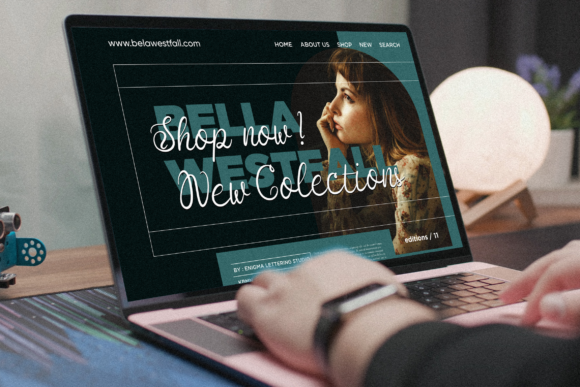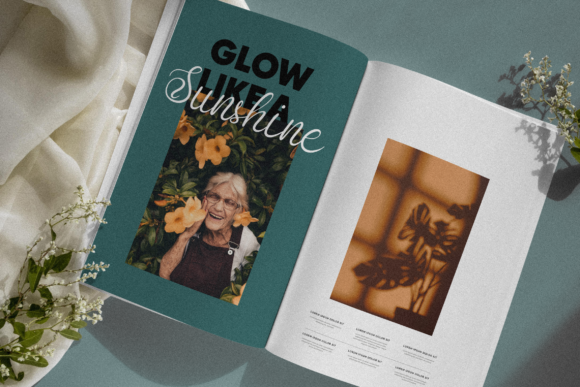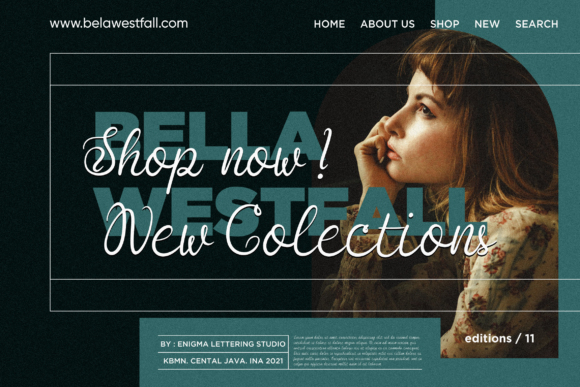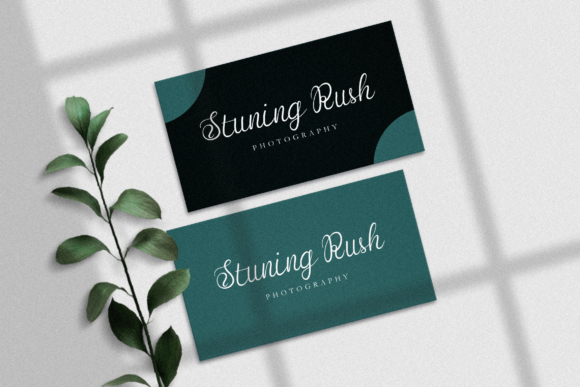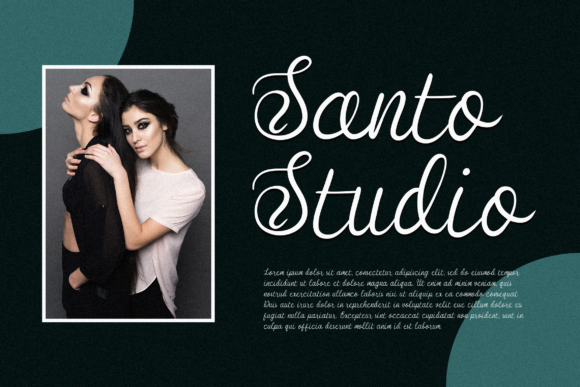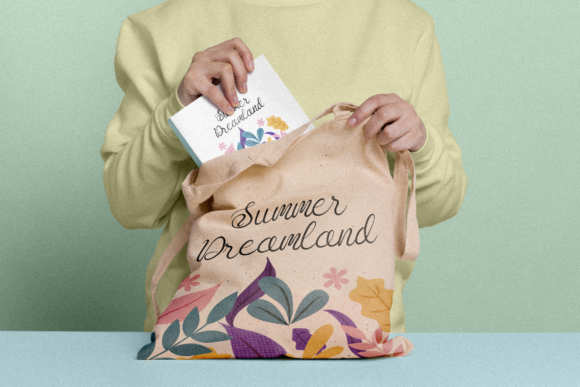
Meet Your New Favorite Font: Hello Queen
Have you ever stared at a blank page, feeling uninspired and uncertain about where to start? For many of us, this is a familiar creative conundrum. But what if I told you that the perfect spark could be just a font away? Introducing the Hello Queen Font, a delicate script font designed to bring elegance and sophistication to your designs.
This lovely font is more than just a pretty face – it’s a powerful tool for designers looking to add a touch of refinement to their work. With its soft curves and gentle lines, the Hello Queen Font is perfect for creating invitations, wedding stationery, and other special occasion designs where a delicate touch is required.
Hello Queen Font Key Features
- Font Family: Hello Queen Font is a beautiful, elegant script font designed to evoke a sense of luxury and sophistication.
- Character Count: The font contains over 250 characters, including uppercase and lowercase letters, numbers, and punctuation marks.
- Unique Characteristics: The font features a unique, flowing script style with elegant flourishes and subtle texture, making it perfect for creating eye-catching designs and adding a touch of sophistication to your projects.
Hello Queen Font Review
Hello Queen Font is a beautifully crafted script font that adds a touch of elegance to any design. I love how it ✨ flows effortlessly, making it perfect for titles, headings, and quotes. The font’s ✨ subtle imperfections and ✨ handwritten feel give it a unique, personal touch that’s hard to resist.
However, I do have a few concerns. The font’s ✨ legibility can be a bit of an issue, especially at smaller sizes. I’ve noticed that the characters can get ✨ crowded and ✨ difficult to read, which may require some careful typography choices. Additionally, the font’s ✨ limited character set can be a drawback for designers who need a wide range of characters to work with.
Here are some specific things to keep in mind when working with Hello Queen Font:
- Legibility may be an issue at smaller sizes
- Limited character set may not be suitable for complex designs
- Requires careful typography choices to avoid crowding
Overall, I think Hello Queen Font is a beautiful addition to any designer’s toolkit. While it may have some limitations, its unique charm and ✨ effortless style make it a great choice for designers who want to add a touch of elegance to their work.
For optimal results, use the Hello Queen Font in bold or italic styles to add emphasis to your text. This font is ideal for creating eye-catching headings, titles, and quotes. You can also use it to add a touch of elegance to your wedding invitations, greeting cards, or social media graphics.